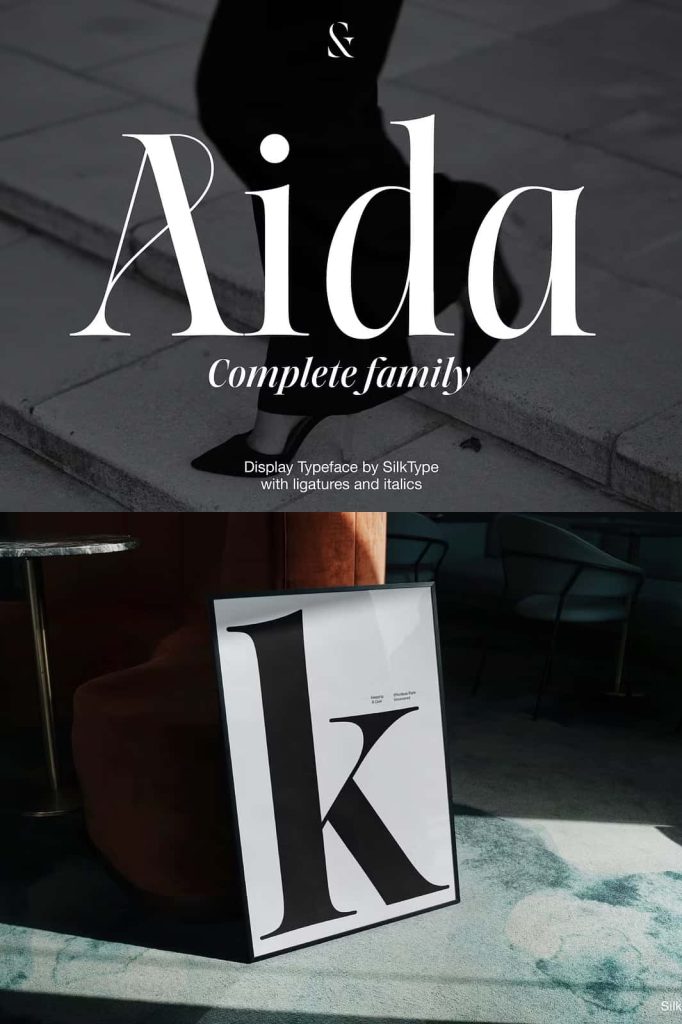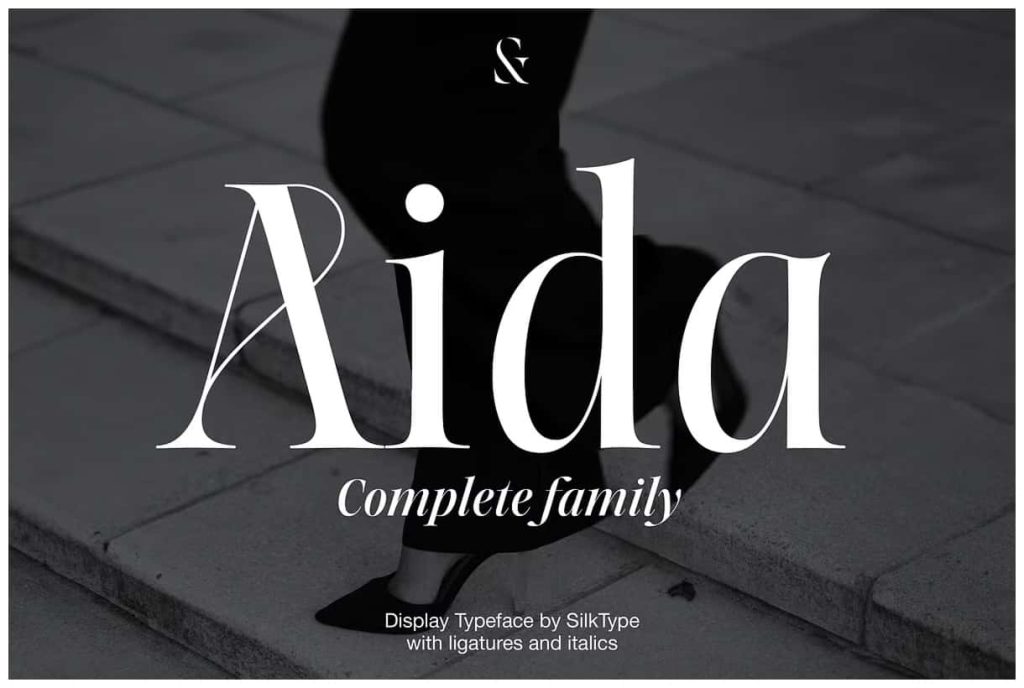
Aida is a high-contrast display typeface made for elegant, eye-catching design. With its extra thin serifs and hairlines, it brings a sharp, refined look to headlines, fashion branding, and editorial layouts.